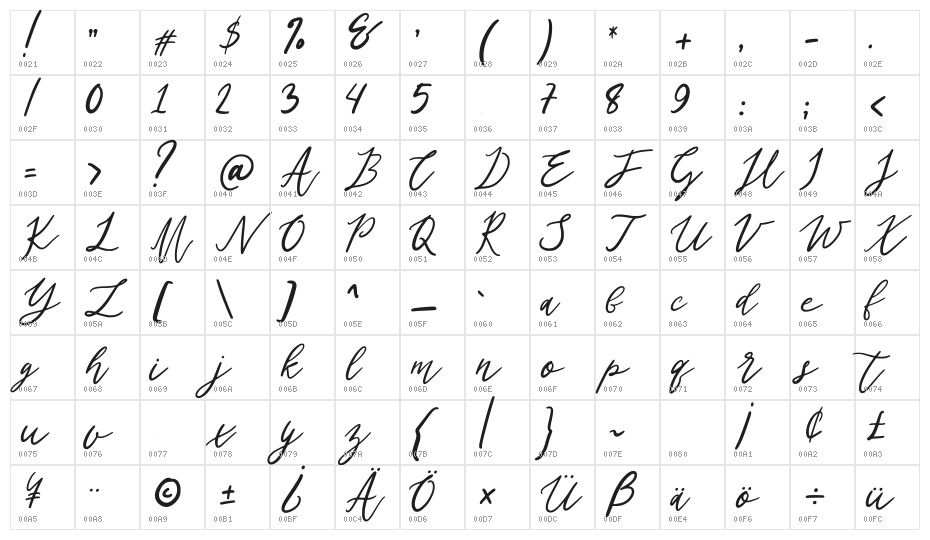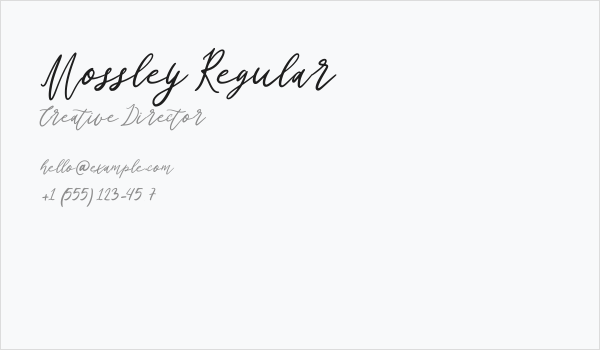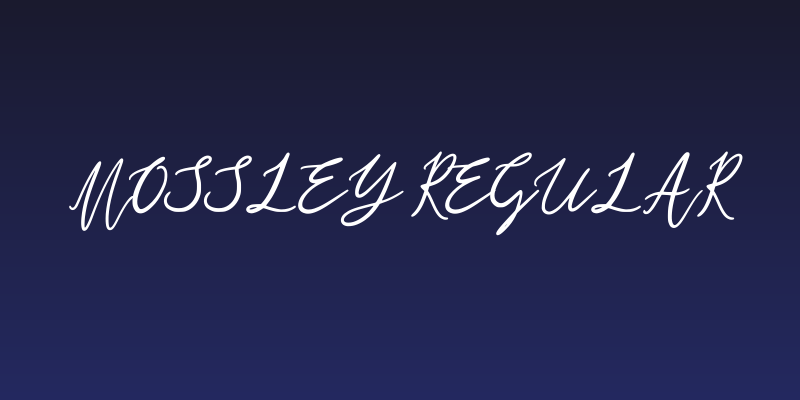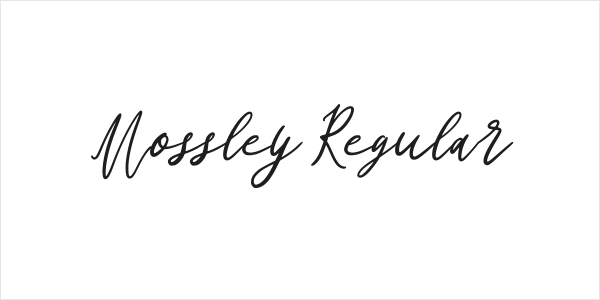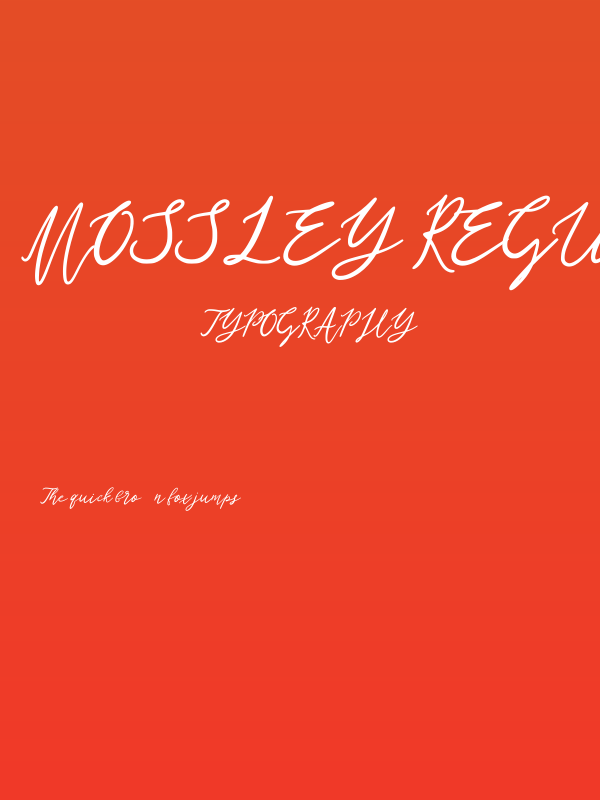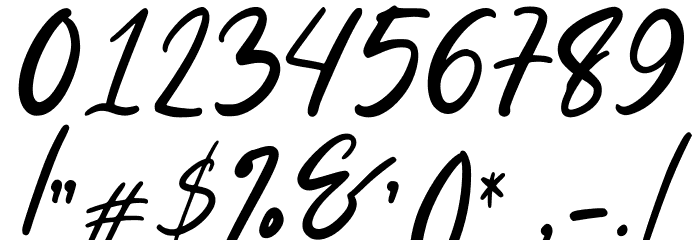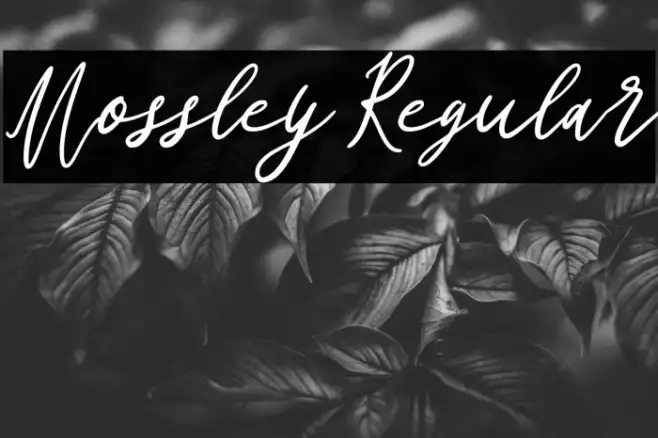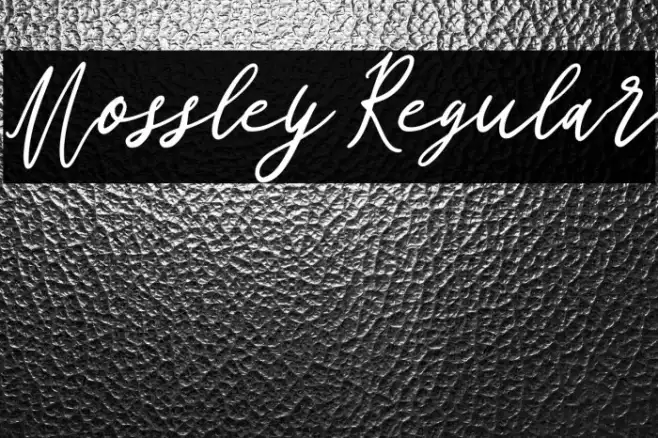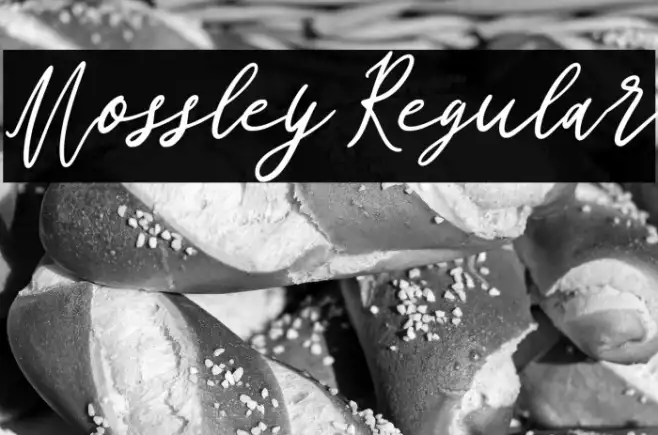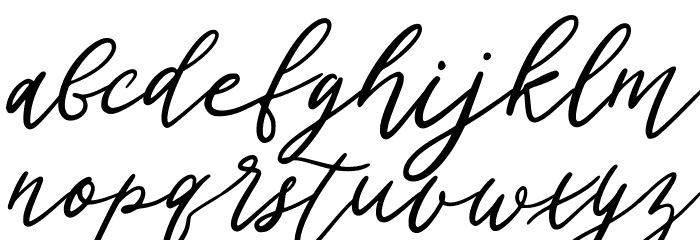
Mossley Regular Font
Mossley Regular Description
This font exudes a lively and expressive character, featuring fluid and dynamic strokes that mimic the natural flow of handwriting. The uppercase letters are elegantly elongated, while the lowercase letters maintain a consistent rhythm, creating a harmonious balance. The numerals are bold and clear, ensuring readability. Special characters are thoughtfully designed to complement the overall style, adding a touch of sophistication. The font's cursive nature makes it ideal for projects that require a personal and artistic touch, such as invitations, greeting cards, and creative branding.